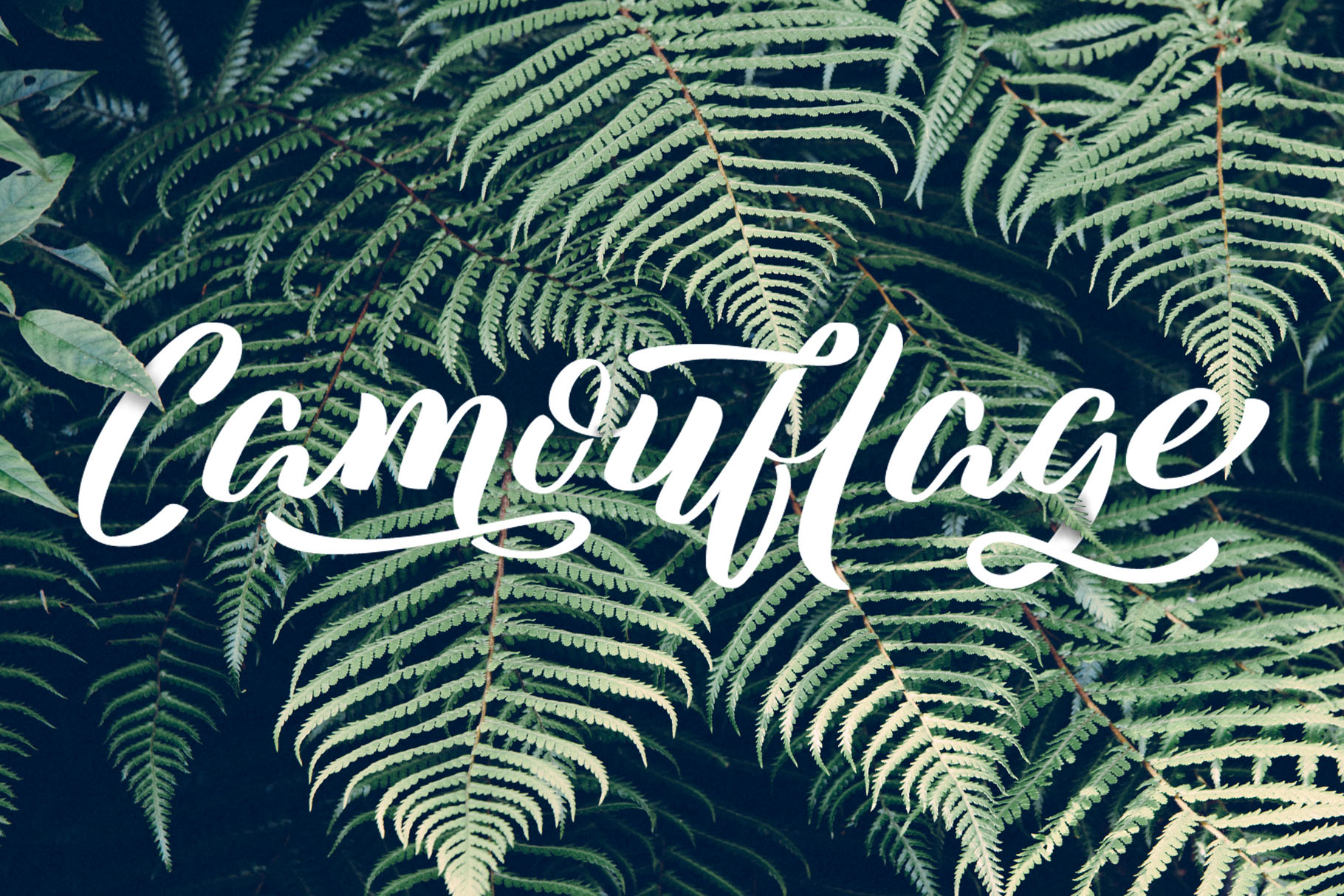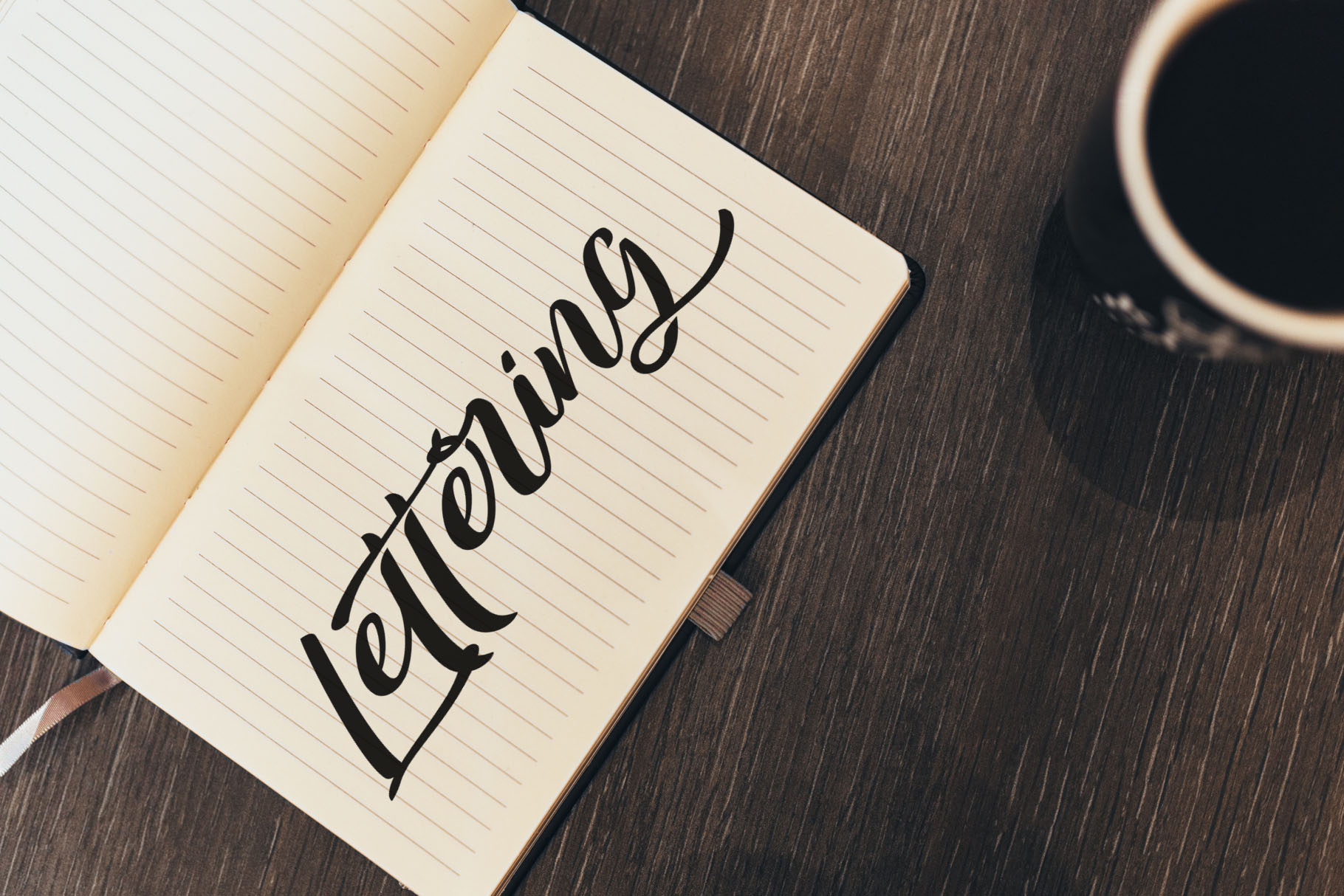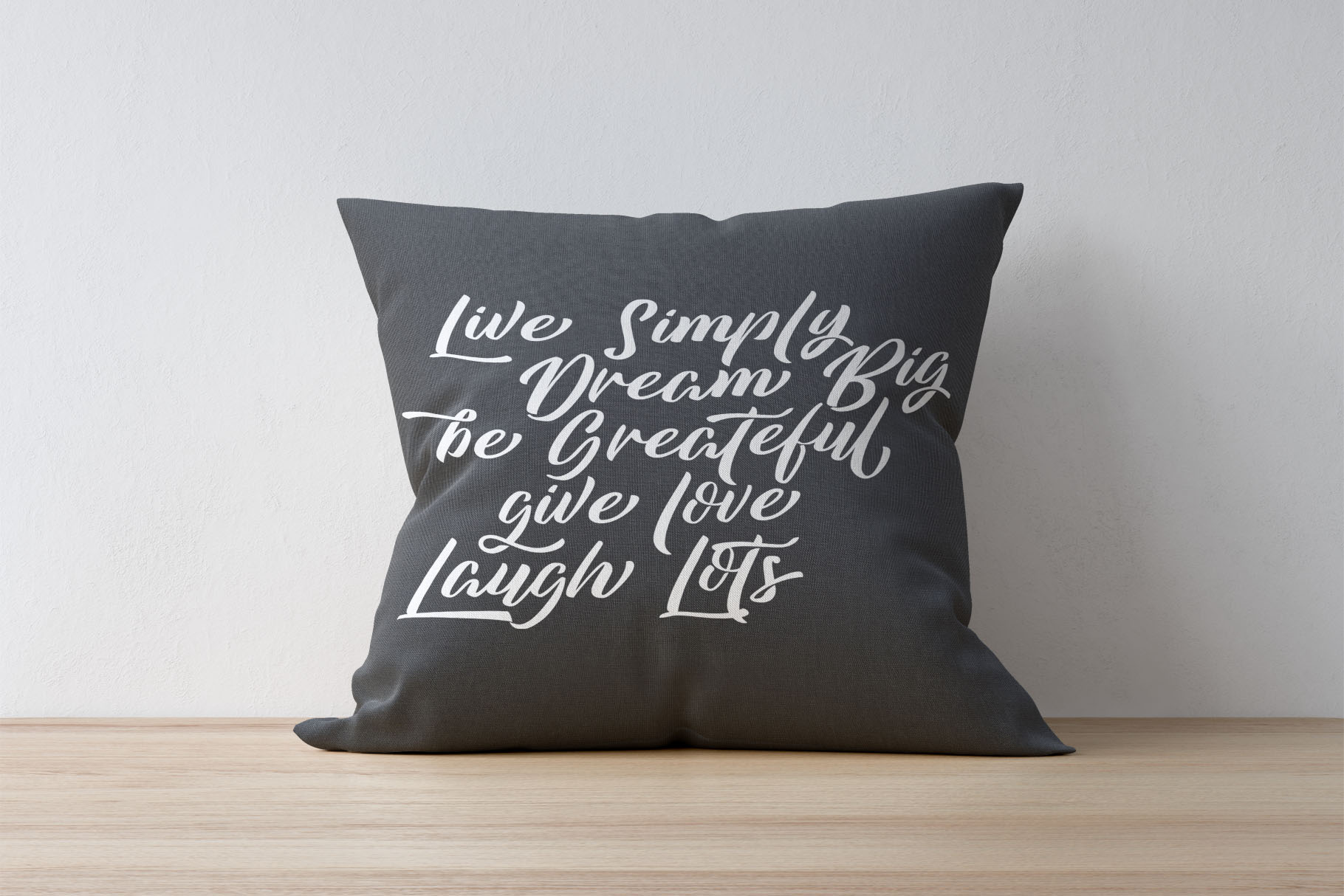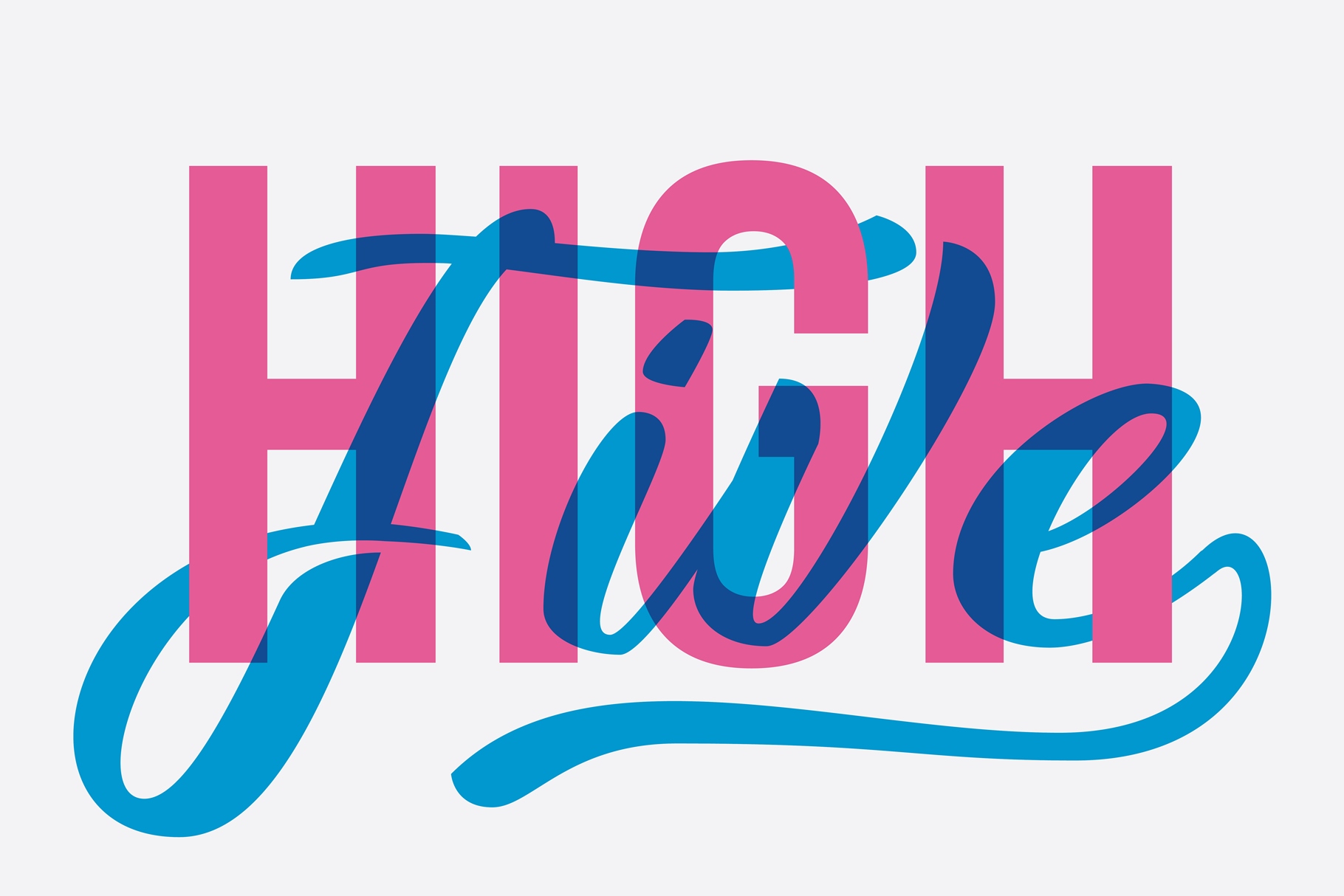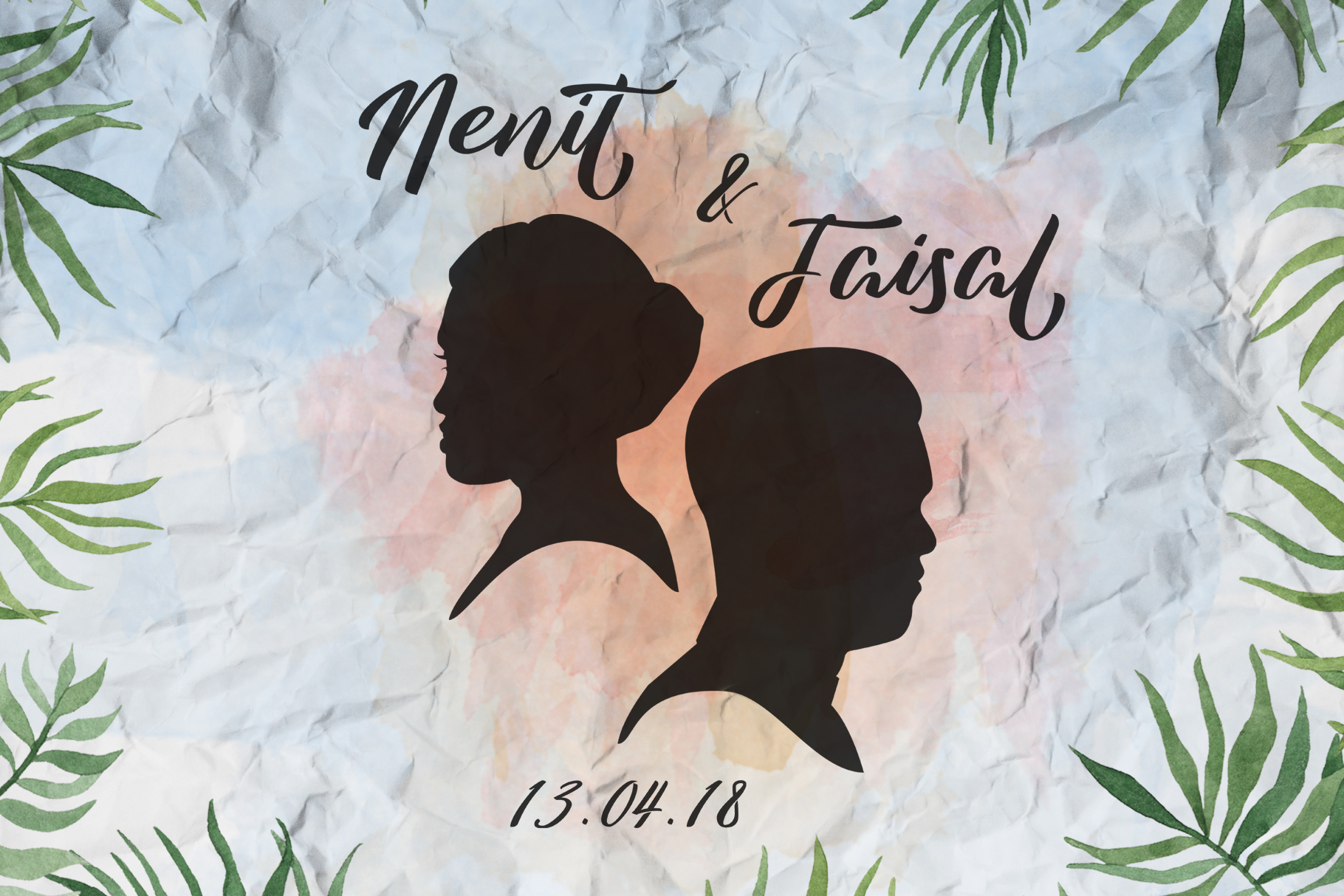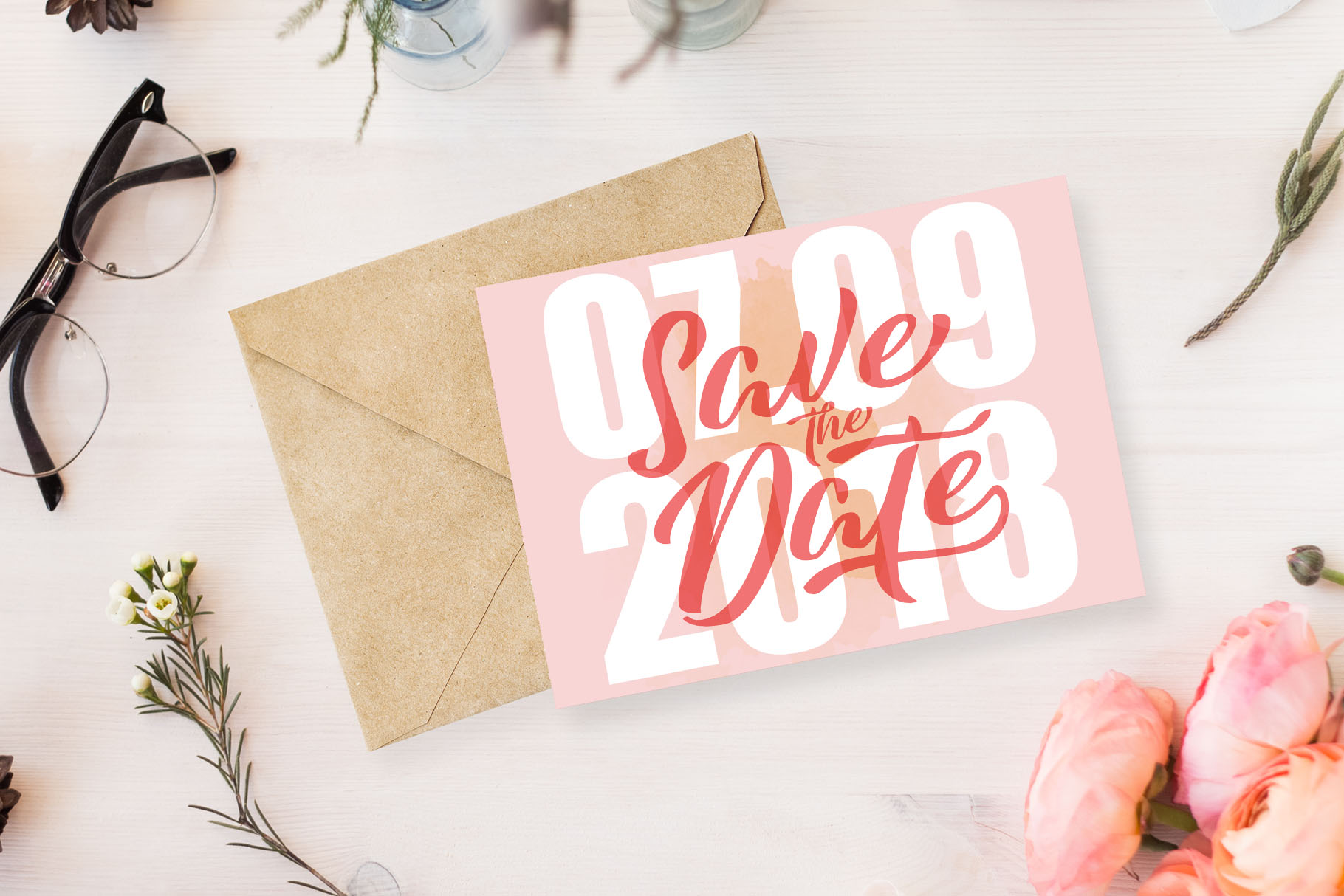
Unleash Your Creativity with Azkasia Font
Have you ever stared at a blank canvas, wondering how to bring your design to life? For many creatives, this moment is the spark that sets off a chain reaction of inspiration. It’s the thrill of experimentation, the joy of discovery, and the satisfaction of seeing your vision take shape. For designers, this moment is a reminder that the right tools can make all the difference.
That’s where Azkasia Font comes in – a stunning, painterly brushed letterscript designed specifically for displays and headline uses. With its unique, customizable style, Azkasia Font is the perfect addition to any designer’s toolkit. Whether you’re crafting a bold logo, creating a striking poster, or building a captivating website, Azkasia Font is the perfect choice for adding a touch of elegance and sophistication.
With its versatility and endless design possibilities, Azkasia Font is a valuable asset for any designer looking to elevate their work and make a lasting impression.
Azkasia Font Key Features
- Unique Characteristics: Azkasia Font features a unique blend of modern and vintage elements, with intricate details and ornate flourishes. It is ideal for use in luxury branding, high-end packaging, and editorial design.
Azkasia Font Review
As a designer, I’ve had the chance to work with Azkasia Font, and here’s my honest review. I’ll break down what works well and what doesn’t.
- Unique aesthetic: Azkasia Font has a distinct, whimsical feel that can add a touch of magic to your designs.
- High-quality glyphs: The font’s letterforms are well-designed and visually appealing, making it suitable for various applications.
- Good legibility: Despite its ornate nature, Azkasia Font remains easy to read, even at smaller font sizes.
- Restricted character set: Azkasia Font has a limited character set, which might not be suitable for projects requiring extensive language support.
- Not ideal for body text: Due to its ornate nature, Azkasia Font is better suited for headlines and titles rather than body text.
- Lack of versatility: While it’s great for fantasy-themed projects, Azkasia Font might not be the best choice for more minimalist or corporate designs.
Overall, I think Azkasia Font is a great addition to any designer’s toolkit, especially for projects that require a touch of fantasy or whimsy. However, it’s essential to be aware of its limitations and use it judiciously to get the most out of it.
Azkasia Font is perfect for:
– Creating elegant and sophisticated titles and headings.
– Designing professional-looking documents and presentations.
– Adding a touch of elegance to your digital products and branding materials.